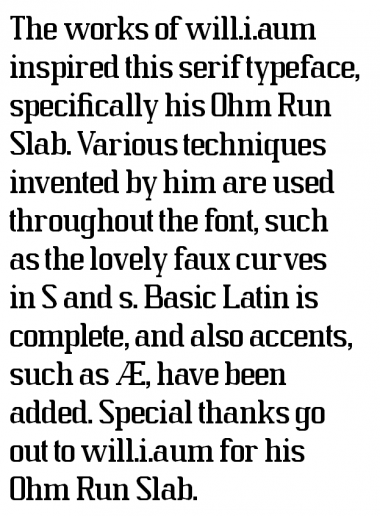
I think the first b/s are the best, not sure about e.
I agree with Yautja… the top row works best, and yes perhaps the e could use an angled cross-stroke. The second b is very cool though and maybe it could inspire a different/companion font.
I would go for the first row as well - and I was thinking the same as fugitiveglue about the alternates being the basis for a different design.
@fugitiveglue: I created another alternate e with an angled cross-stroke. I've made a second image and included it.
A isn't the best... but otherwise, good font.
How about flipping A horizontally?
nice start for this serif typeface. may i add my suggestions?
- the (first) A should be wider
- the a's upper terminal should be shorter
- the diagonals of v and y look too stout
also, i'd prefer the first e and the first s. they both fit nicely to the rest of the characters.
@opipik, four, laynecom: I fixed the A; I think it fits in much better now. Thanks for the suggestions.
@laynecom: I also fixed the a, and I'm working on the v and y. They were the first versions I made, and I hadn't fixed them up yet.
I like how the alternates say 'bbeess'. XD
The A in AE looks a little thin.
Just beautifully done and a useful serif